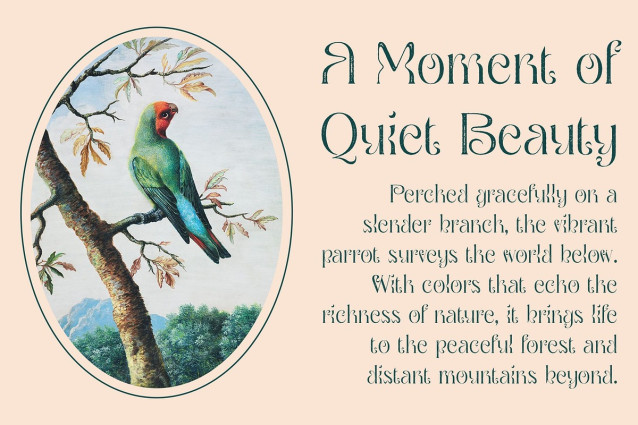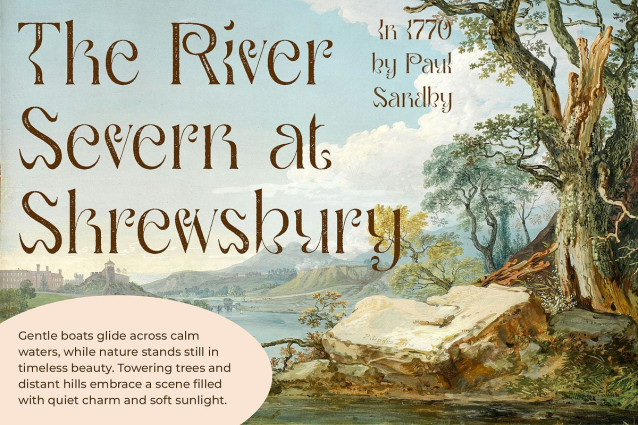
Qaila Stamp Font
Qaila Stamp Font is a modern serif font that captures the graceful curves and organic flow of Art Nouveau. Its slender, refined letterforms feature minimalist detailing and smooth transitions, radiating timeless elegance and artistic sophistication. This makes it an ideal choice for designs that embrace classic beauty with a modern touch.
Unique Stamp Texture for Classic Character Each letter in Qaila Stamp is enriched with a subtle stamp effect that adds depth, warmth, and handcrafted charm. This textured overlay gives the font a vintage, printed feel—perfect for evoking a sense of authenticity and history. The soft imperfection of the stamp finish makes every composition feel more tactile and expressive.
Modern Minimalism Meets Artistic Aesthetics Despite its ornate origins, Qaila Stamp maintains a clean and contemporary structure. Its minimalist serif style is elevated by the aesthetic flourishes of Art Nouveau and the raw texture of the stamp effect.
Perfect for Luxury Branding, Editorial Design, and Packaging Qaila Stamp’s refined curves and textured finish make it exceptionally well-suited for luxury branding, artistic editorials, and visually styled packaging. Whether used in logos, headlines, or display layouts, this font adds a distinctive and elevated tone—ideal for brands and projects that value design artistry, elegance, and individuality.